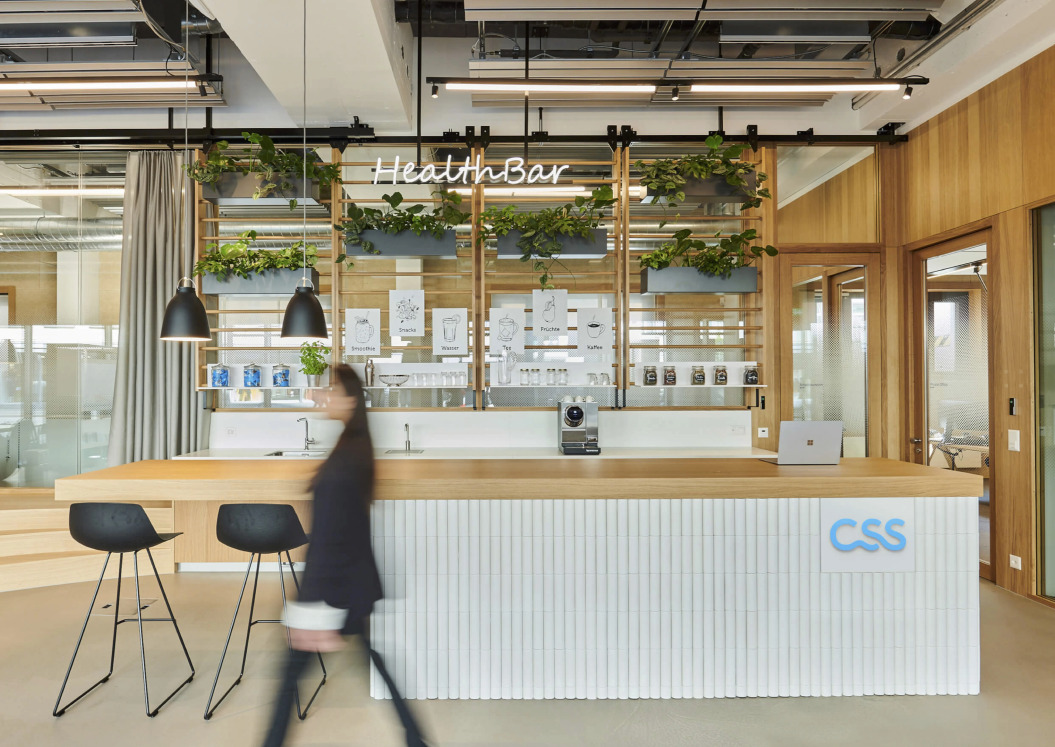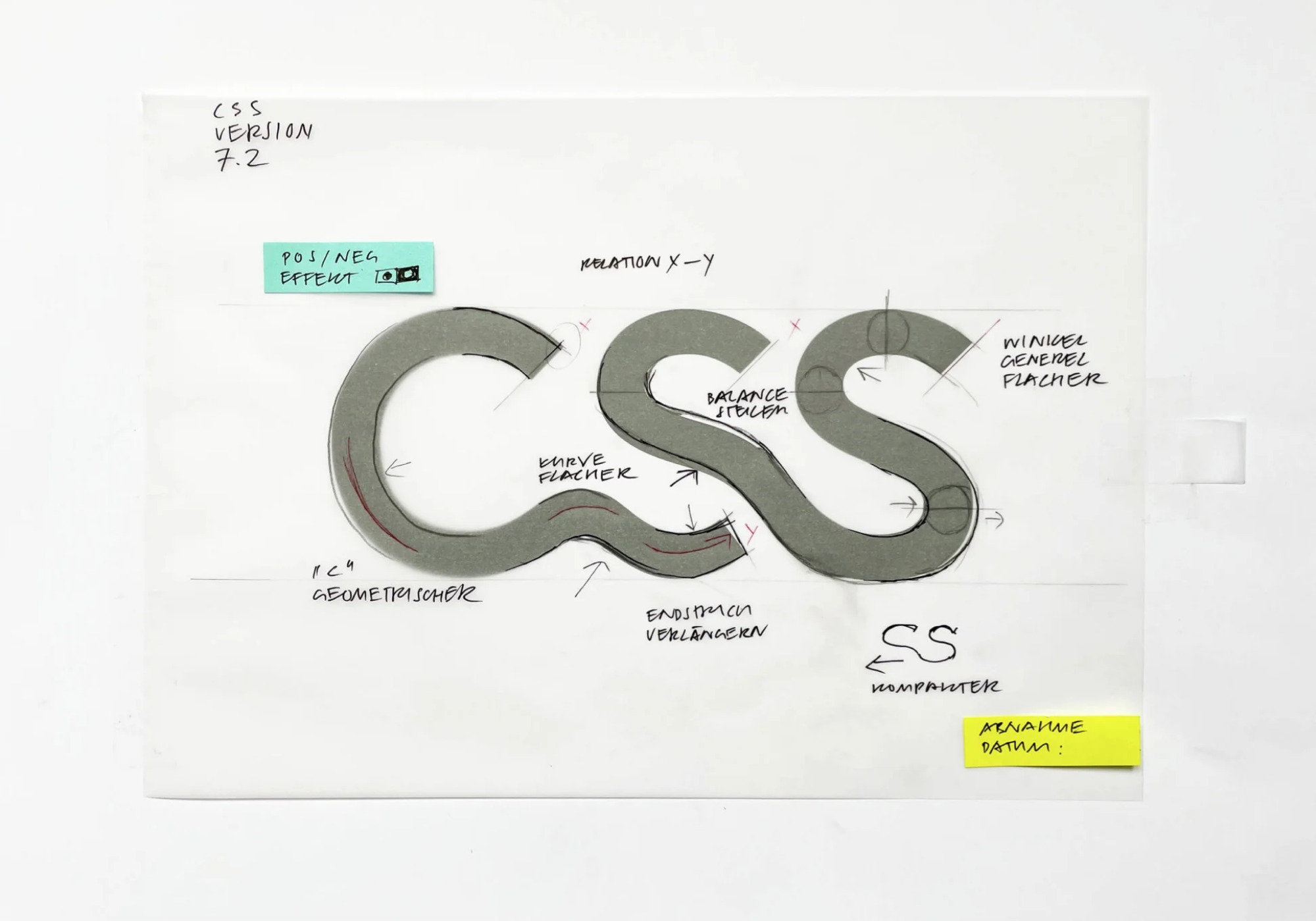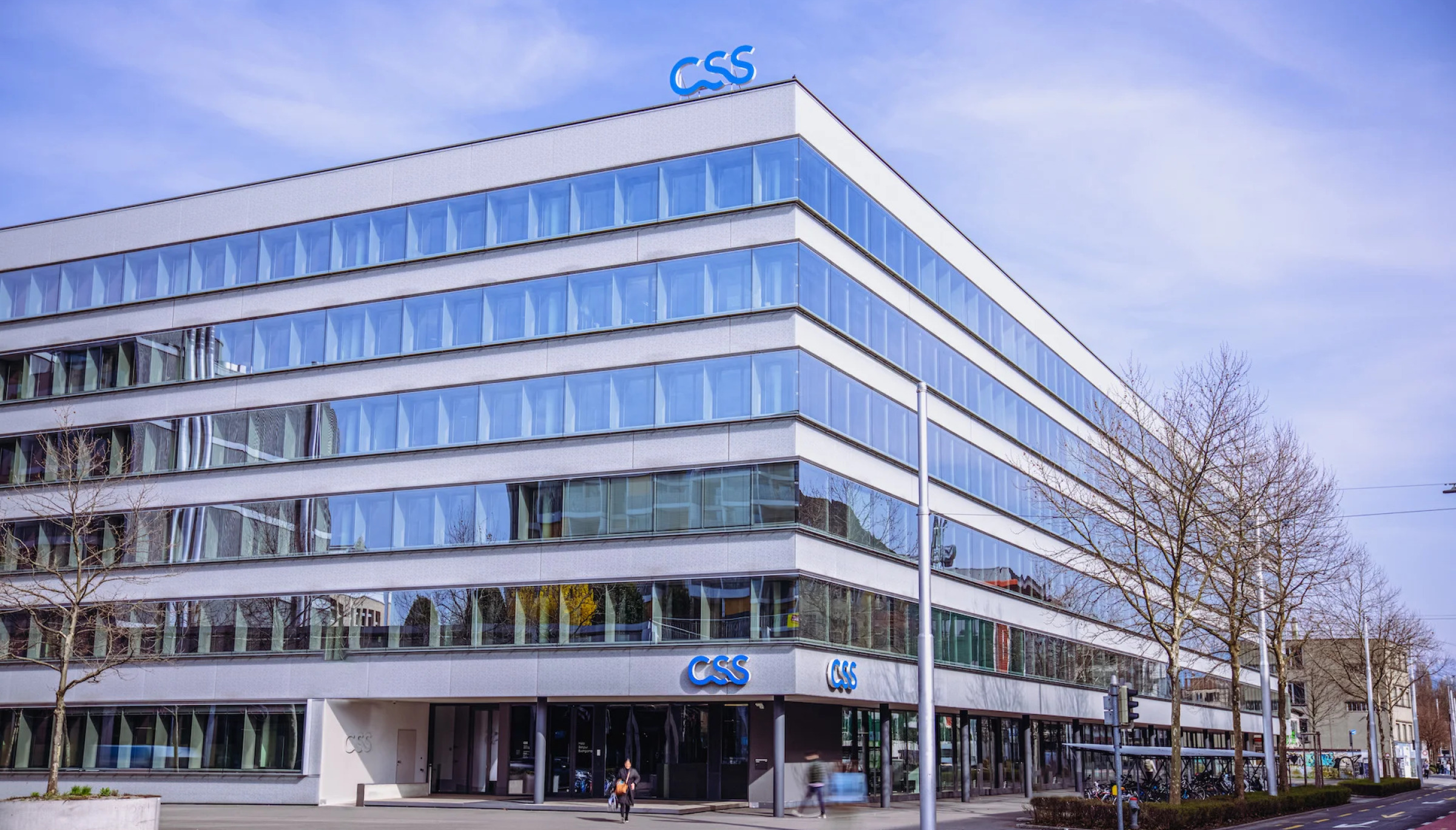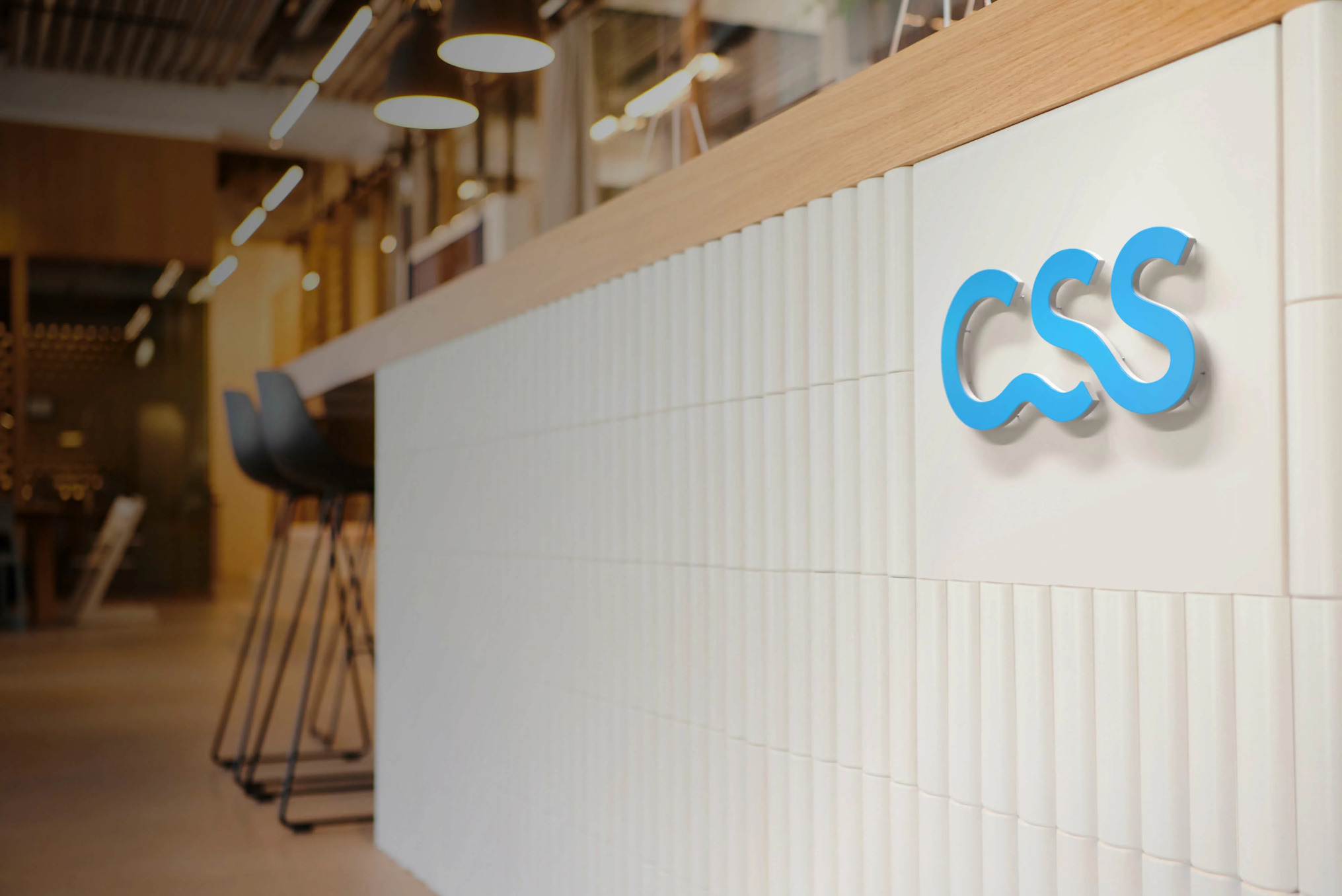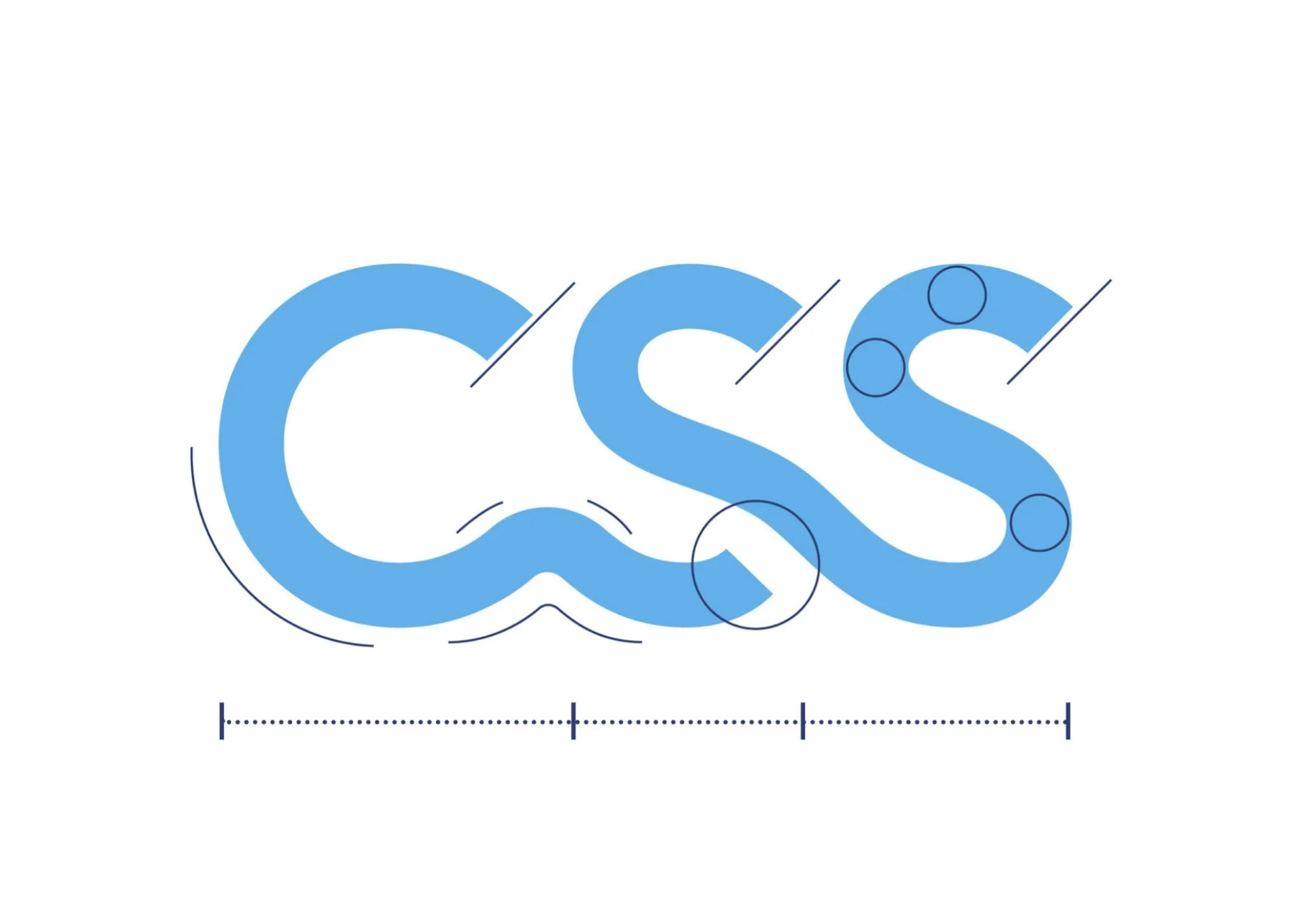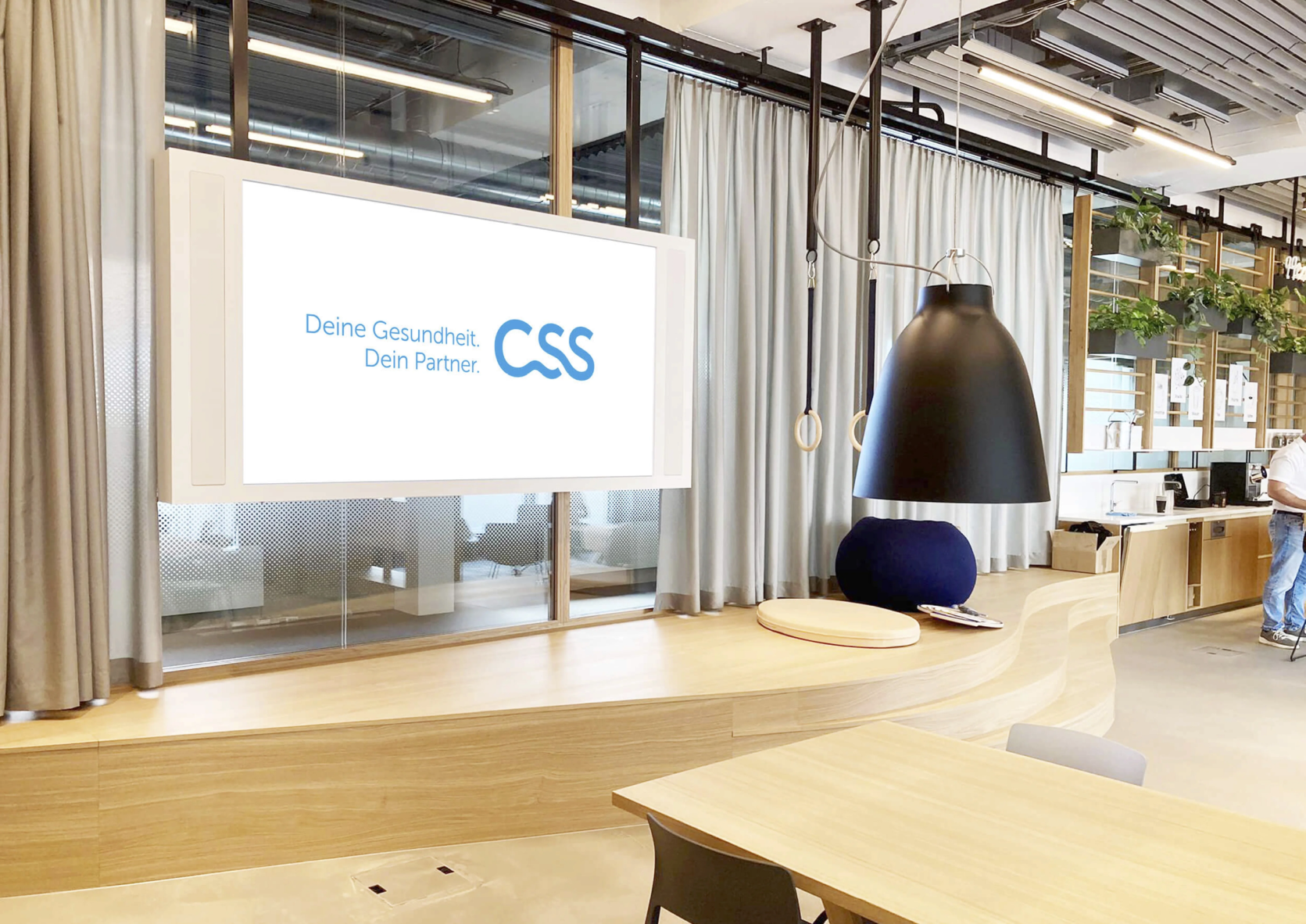
CSS
A Logo Refinement for CSS
CSS logo in use
CSS logo
CSS logo in use
CSS
A Logo Refinement for CSS
CSS logo in use
CSS logo
Leading Swiss insurer CSS worked with Martin et Karczinski to develop a new visual identity. We applied our expertise to the new logo’s fluid contours and distinctive connections, harmonizing its construction, and delivering an iconic testament to meticulous design.
CSS
Exclusive to the CSS
Original logo
Exploring the design
Final logo